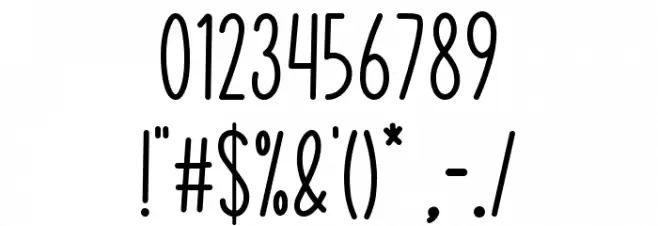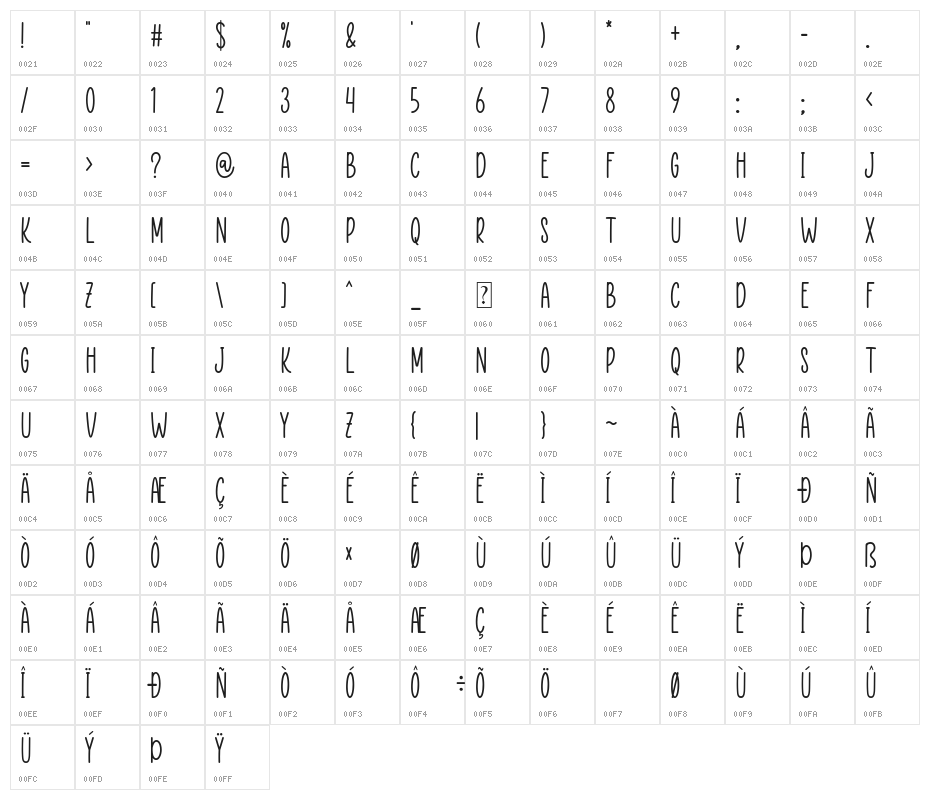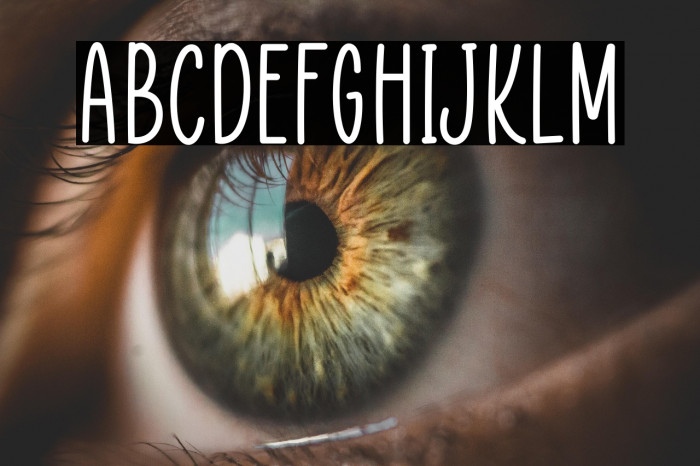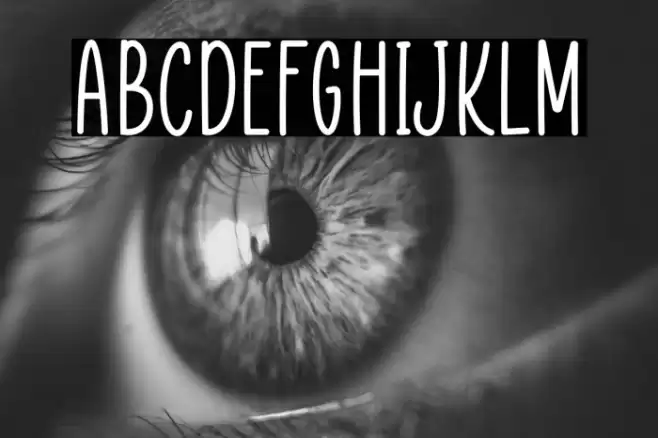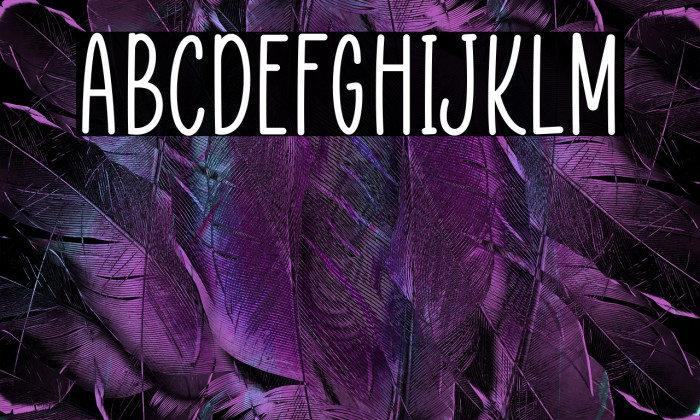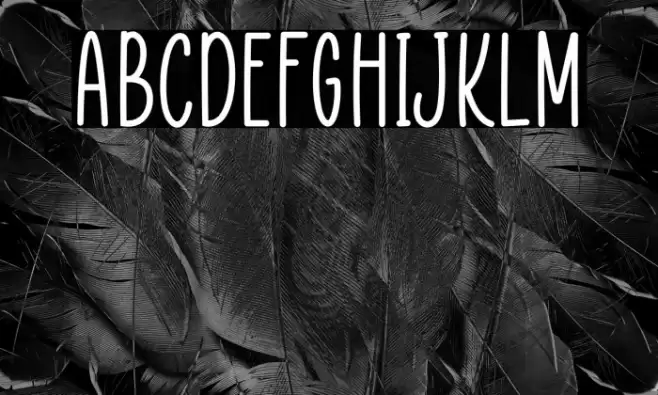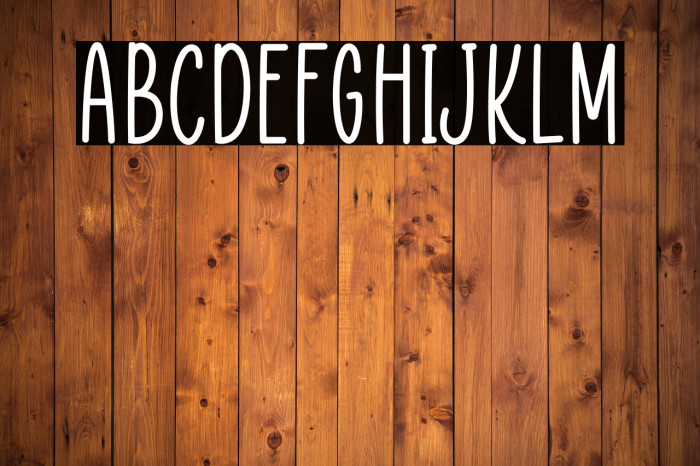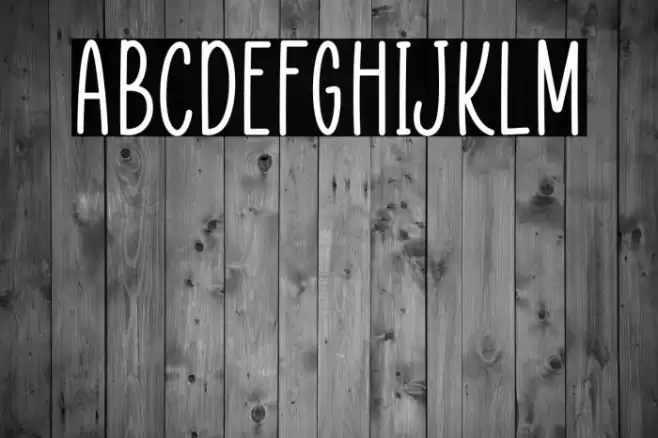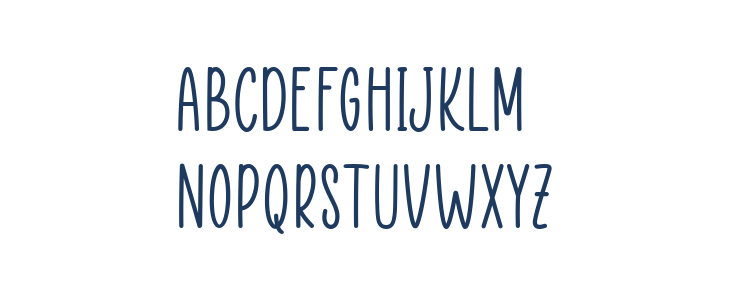
Paper Flowers Font
Paper Flowers Description
This font features a playful and whimsical style, characterized by its tall and narrow letterforms. The strokes are consistent in width, giving it a monoline appearance. The letters have a hand-drawn quality, with subtle irregularities that add to its charm. The uppercase and lowercase letters maintain a cohesive look, while the numerals and special characters blend seamlessly with the overall design. This font exudes a friendly and approachable vibe, making it suitable for creative and informal applications.